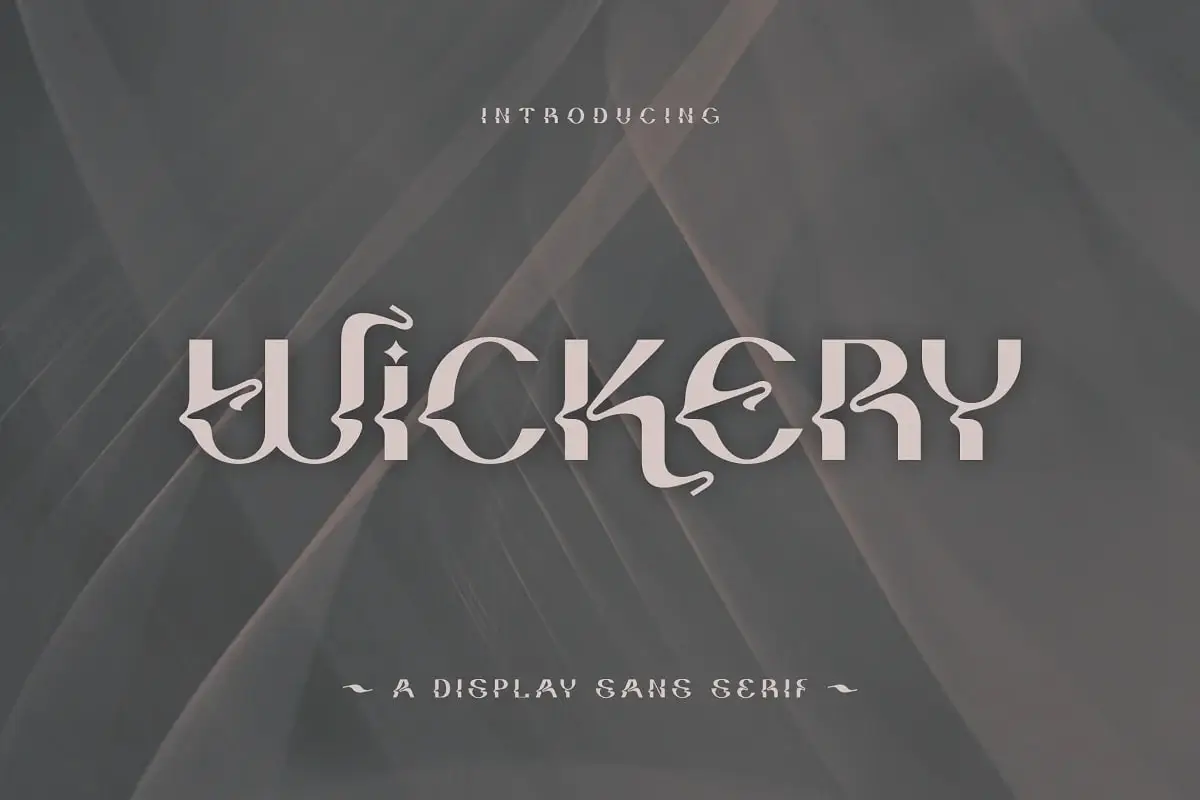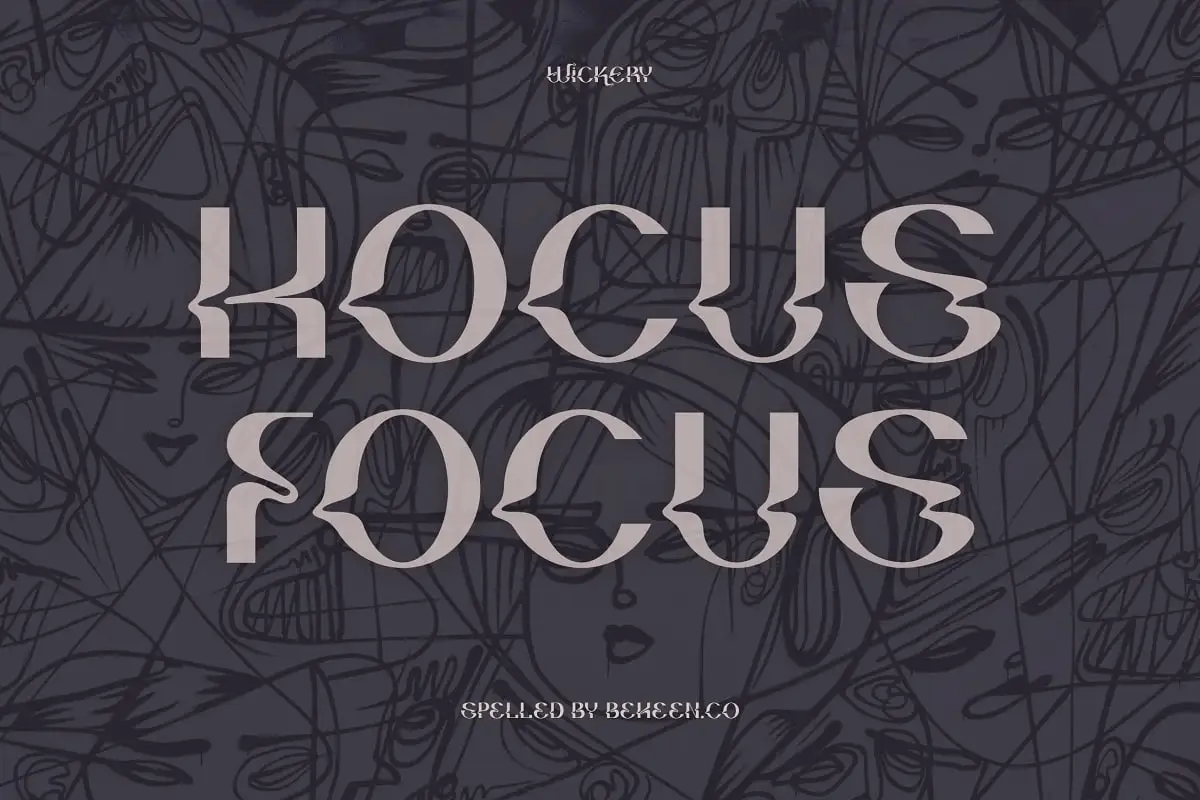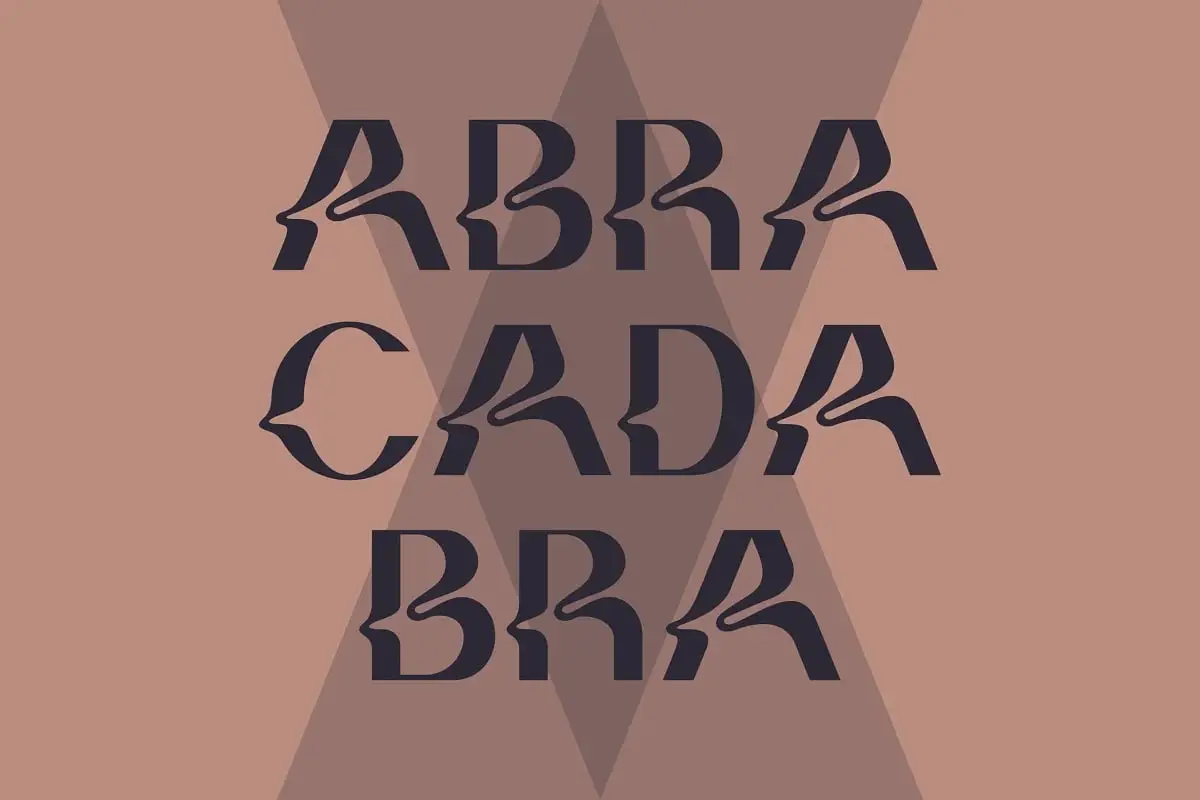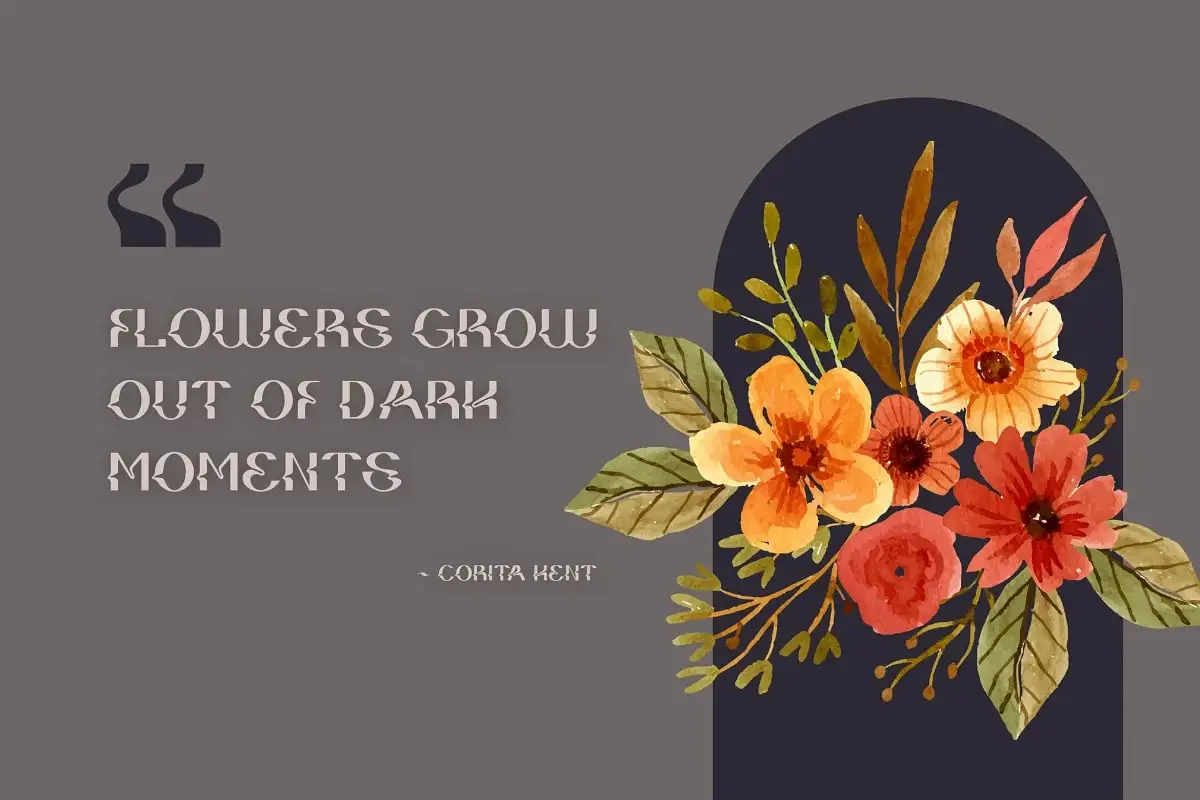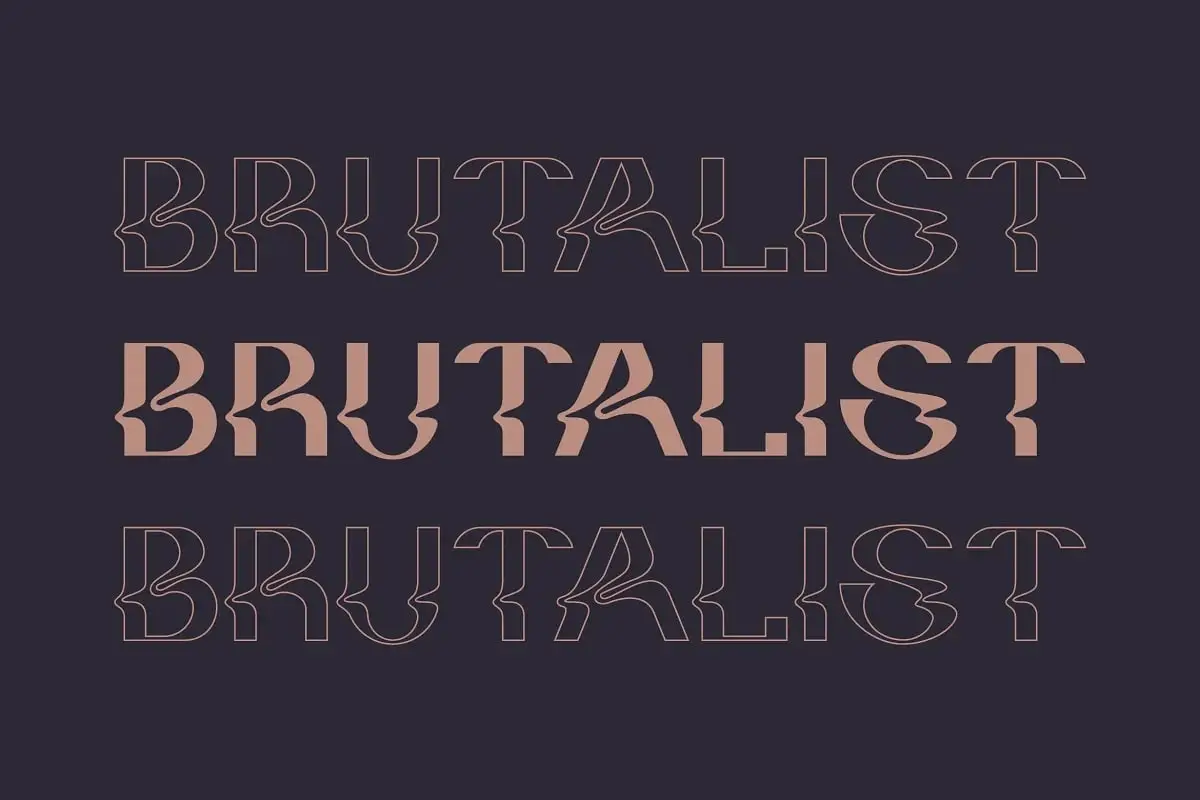
Bekeen-Wickery Font
The Bekeen-Wickery Font is a beautifully crafted typeface that combines elegance with a touch of whimsy. This font features a unique style that is perfect for various design projects, from branding to print materials.
• Ideal for logos, invitations, and greeting cards.
• Great for web design and user interfaces.
• Use in print materials for a sophisticated touch.